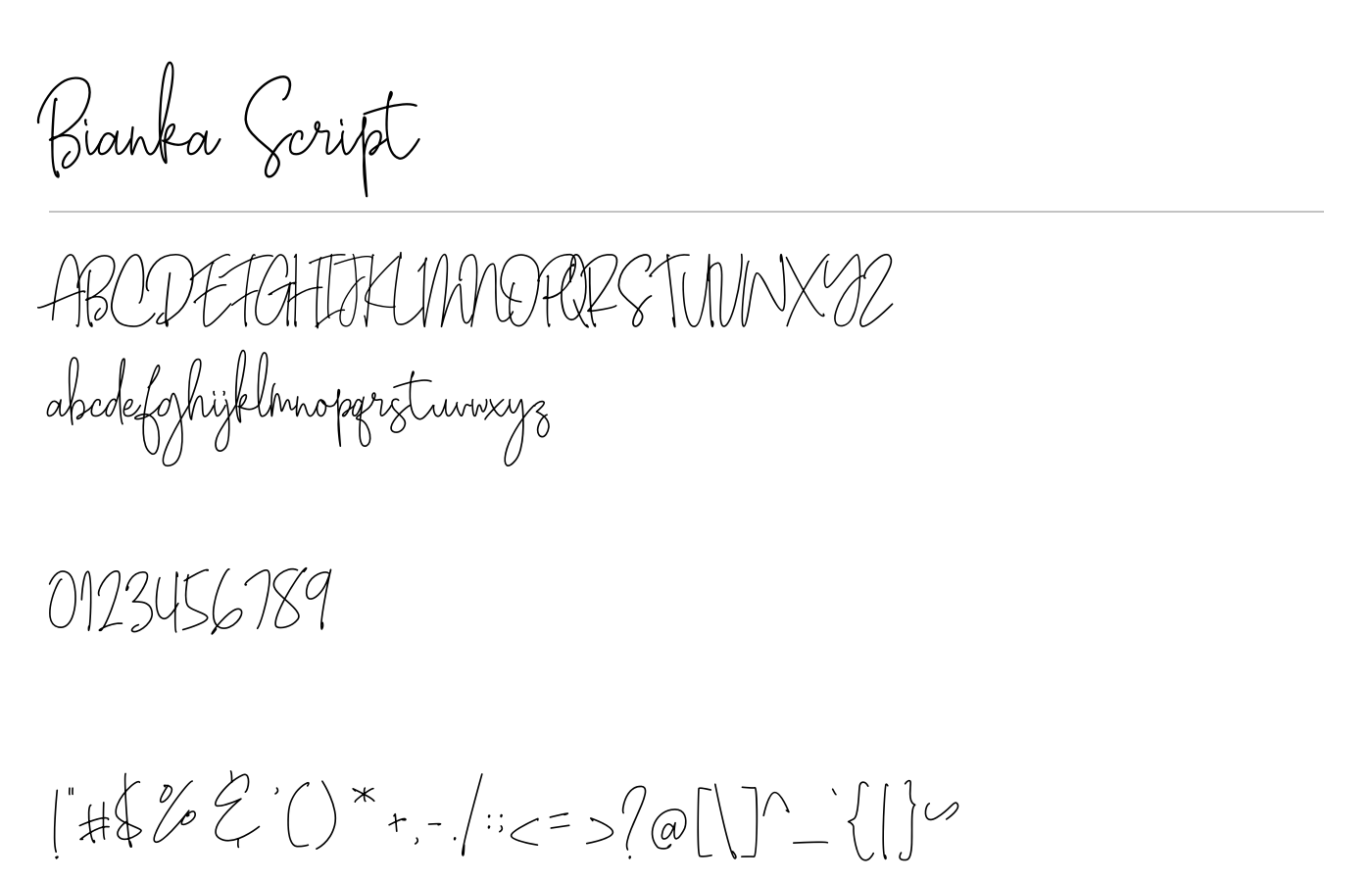
Bianka Script is a delicate and airy handwritten font with a slender, flowing style that feels personal and elegant. Its tall, narrow letterforms and fine strokes create a light, whimsical appearance, making it perfect for invitations, branding, and creative projects that want to convey a sense of casual sophistication and warmth. This font shines in designs where a charming, intimate hand-drawn touch is needed without sacrificing readability.
Bianka Script Font